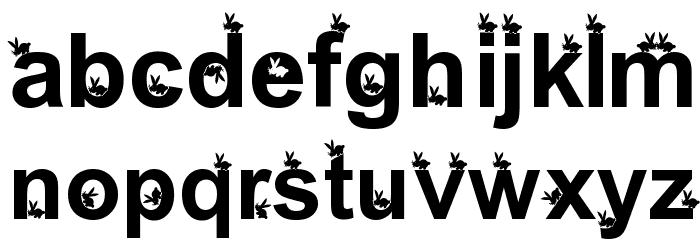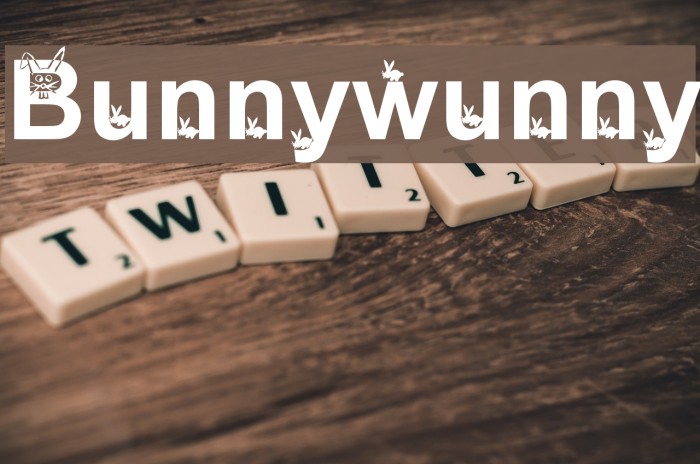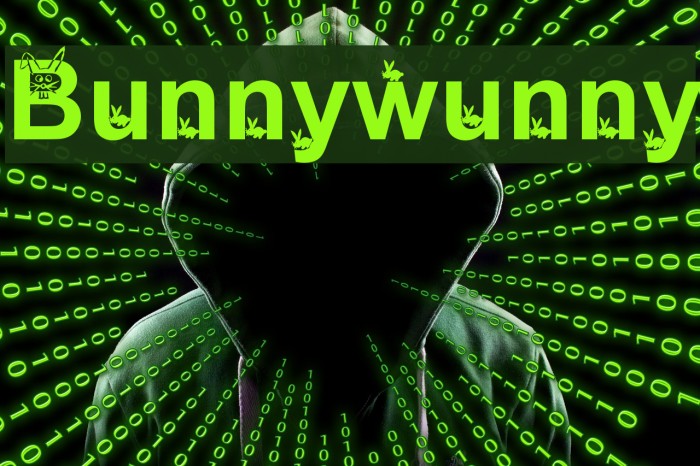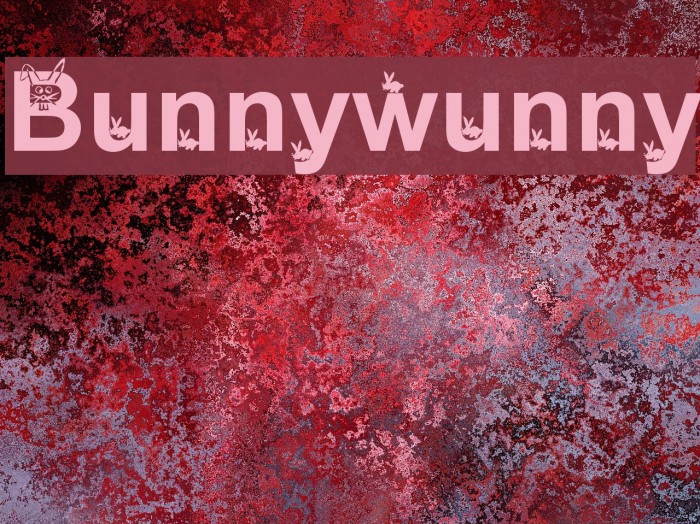
Bunnywunny Font
This playful and whimsical font features bold, sans-serif letters adorned with charming bunny illustrations. Each character is uniquely designed with a small bunny face and ears integrated into the letterform, adding a delightful and humorous touch. The font maintains a consistent weight and width, ensuring readability while still offering a decorative flair. The numbers and special characters are similarly styled, making the entire set cohesive and visually engaging. This font is perfect for projects that require a fun and lighthearted aesthetic.
A whimsical sans-serif font with bunny illustrations integrated into each character.
- Proposed Projects: Ideal for children's books, playful branding, greeting cards, and Easter-themed designs.
- Overall Style: Playful and Whimsical
- Use Case: Headlines, Logos, Decorative Text